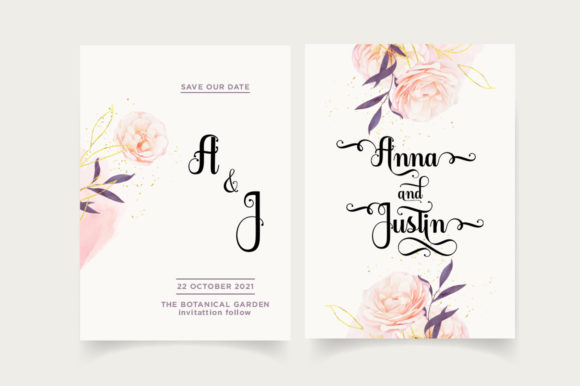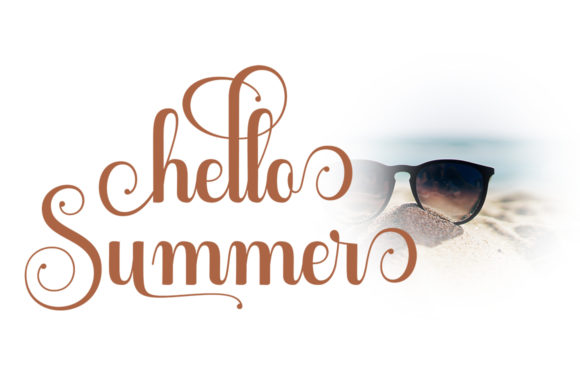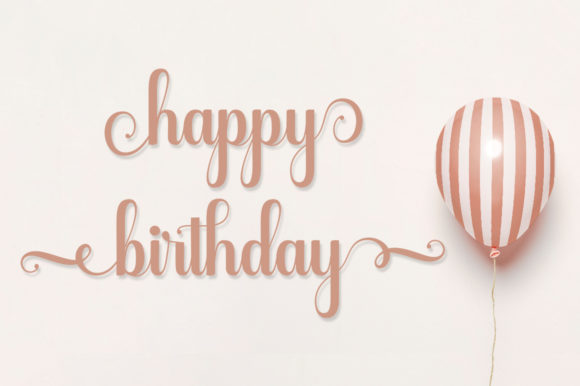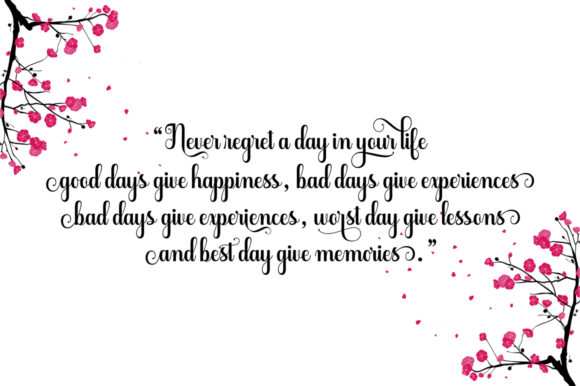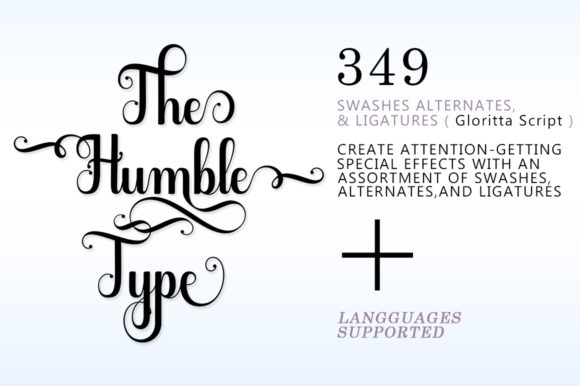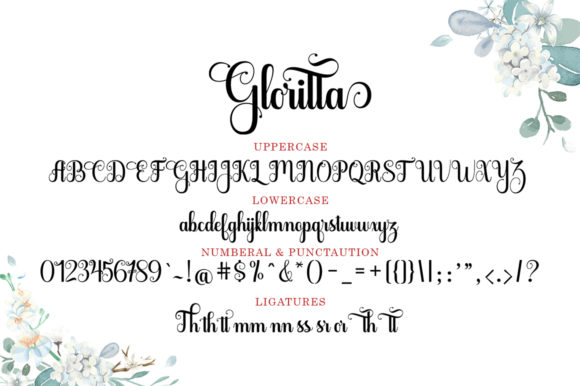
Gloritta Font: Elevate Your Designs with Elegance and Sophistication
In the world of typography, a font can make or break a design. A well-crafted font can elevate your creation from ordinary to extraordinary, adding a touch of elegance and sophistication. If you’re a designer or crafter looking to take your designs to the next level, look no further than the Gloritta Font. This dazzling script font is a game-changer, offering a level of detail and refinement that’s hard to find elsewhere.
What Makes Gloritta Font So Special?
Gloritta Font is a beautifully crafted script font that’s perfect for a wide range of design applications. Whether you’re working on a branding project, a wedding invitation, or a social media graphic, this font is sure to impress. Its intricate details and flowing lines make it a joy to use, and its versatility ensures that it will fit seamlessly into any design.
One of the standout features of Gloritta Font is its PUA (Private Use Area) encoding. This means that you can access all of the glyphs and swashes with ease, giving you complete creative control over your design. Whether you want to add a touch of whimsy or create a more formal look, Gloritta Font has got you covered.
Key Features of Gloritta Font
- Dazzling Script Font: Gloritta Font is a stunning script font that’s sure to turn heads. Its intricate details and flowing lines make it perfect for a wide range of design applications.
- Neatly Crafted and Highly Detailed: This font is meticulously crafted, with a level of attention to detail that’s hard to find elsewhere.
- PUA Encoded: With PUA encoding, you can access all of the glyphs and swashes with ease, giving you complete creative control over your design.
- Versatile: Gloritta Font is perfect for a wide range of design applications, from branding and advertising to wedding invitations and social media graphics.
Why Choose Gloritta Font?
There are many fonts on the market that claim to be elegant and sophisticated, but Gloritta Font stands out from the crowd. Here are just a few reasons why:
- Unique and Eye-Catching: Gloritta Font is a truly unique font that’s sure to grab attention. Its intricate details and flowing lines make it a standout in any design.
- Highly Versatile: Whether you’re working on a formal or informal design, Gloritta Font is sure to fit the bill.
- Easy to Use: With PUA encoding, you can access all of the glyphs and swashes with ease, making it simple to get the look you want.
- Professional-Grade: Gloritta Font is a professional-grade font that’s perfect for designers and crafters who want to create high-quality designs.
How to Use Gloritta Font in Your Designs
Using Gloritta Font in your designs is easy. Here are a few tips to get you started:
- Pair it with Other Fonts: Gloritta Font pairs perfectly with a wide range of other fonts, from sans-serif fonts like Arial and Helvetica to serif fonts like Times New Roman.
- Experiment with Different Sizes: Gloritta Font looks great in a variety of sizes, from large headings to smaller body text.
- Play with Glyphs and Swashes: With PUA encoding, you can access all of the glyphs and swashes with ease, giving you complete creative control over your design.